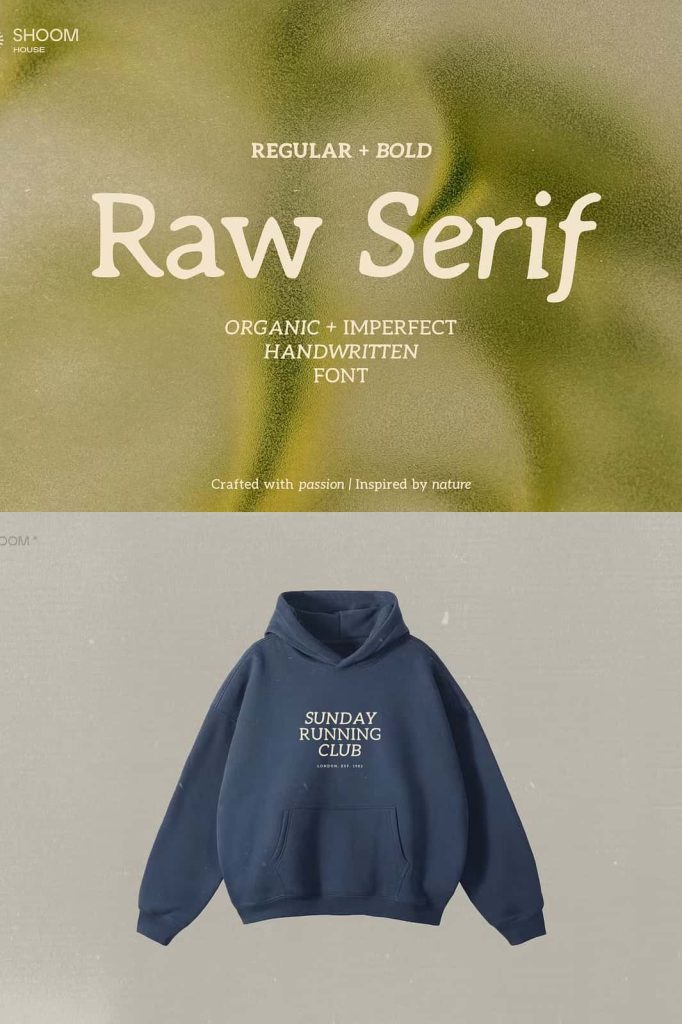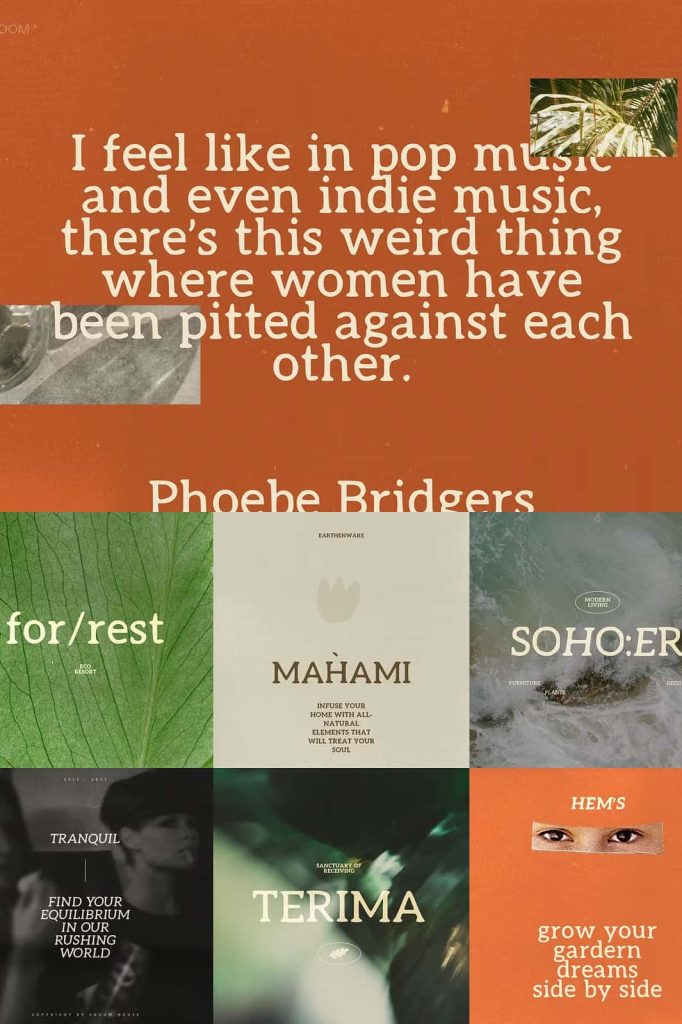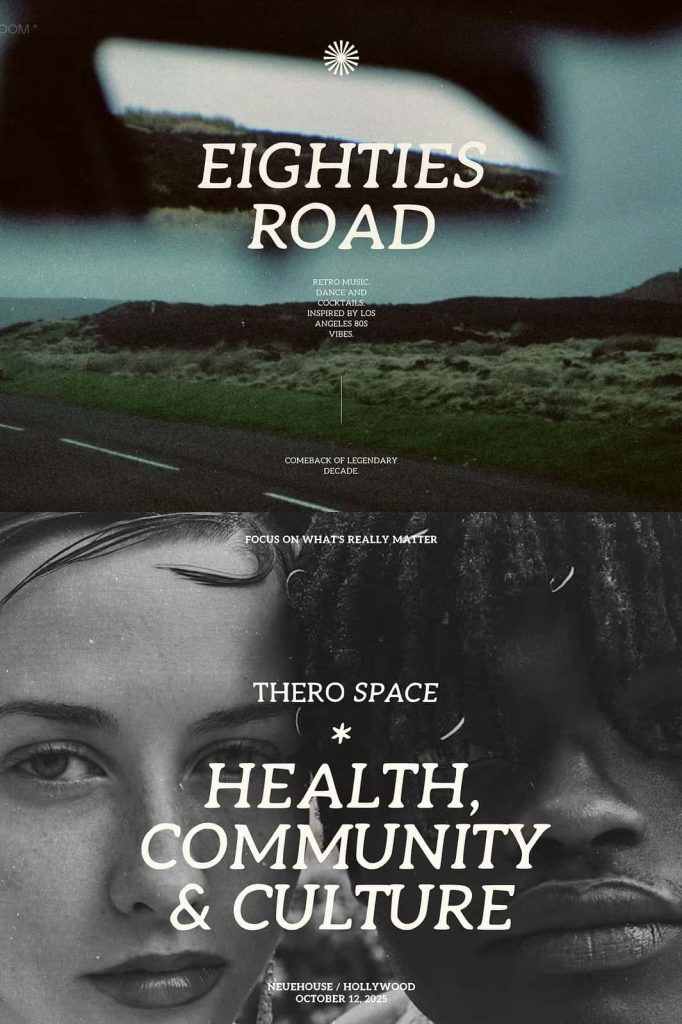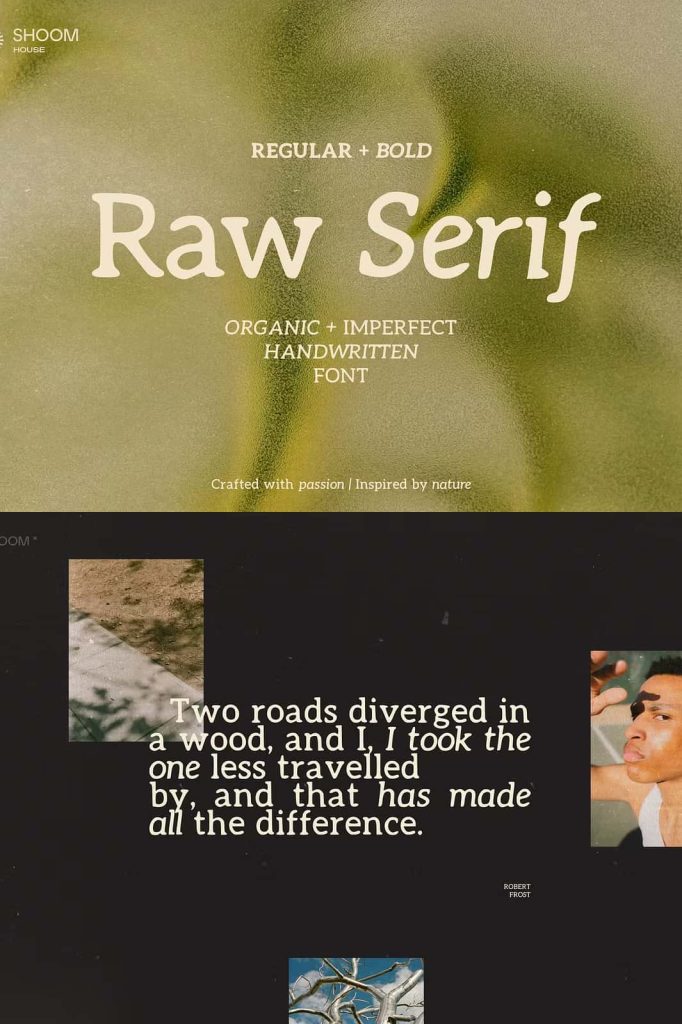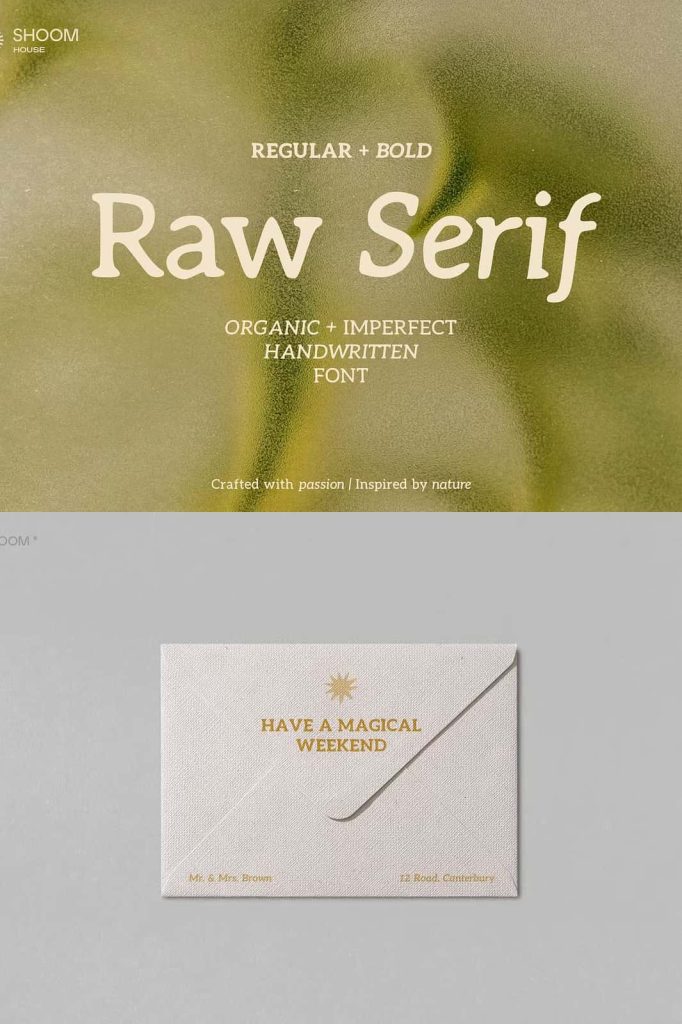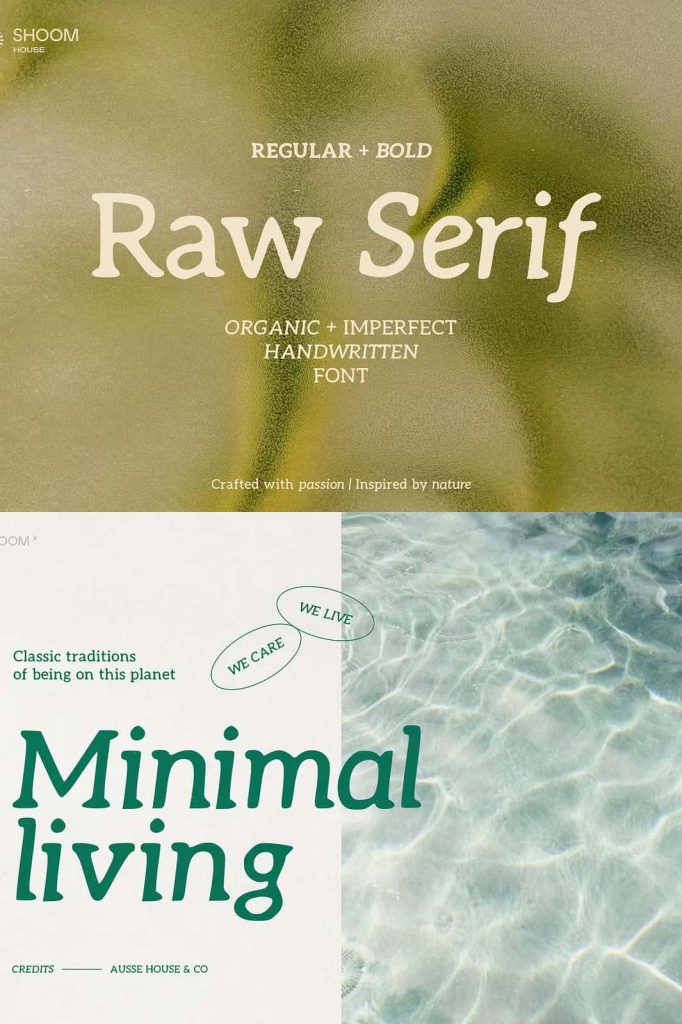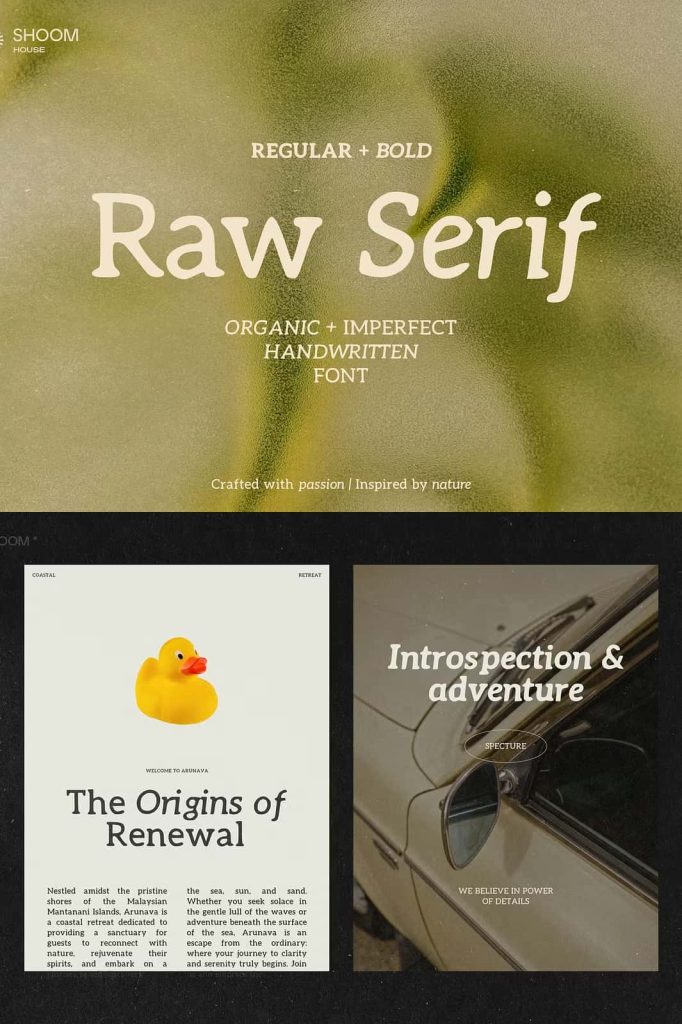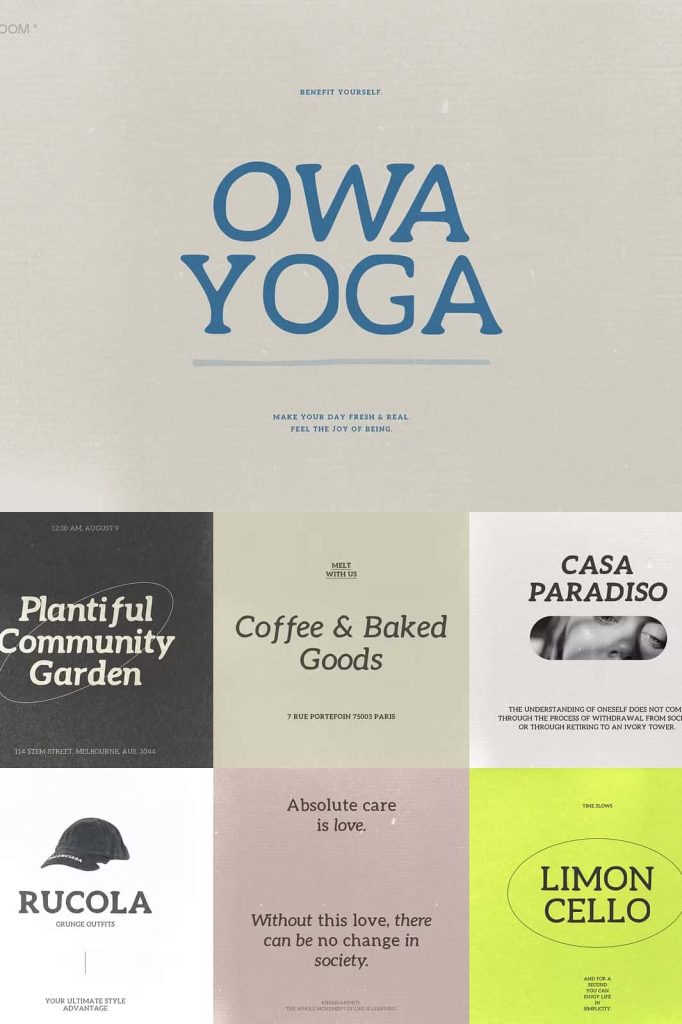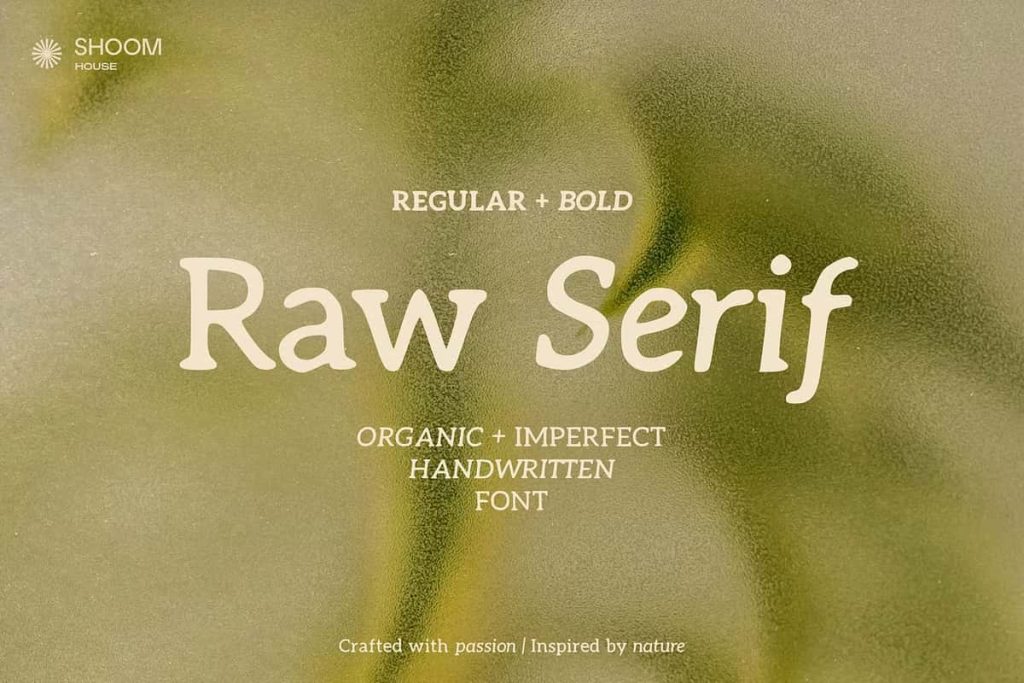
Raw Serif Font Family: A Handwritten Serif with Vintage Soul
Raw Serif blends the structure of a serif typeface with the expressive qualities of handwritten design. This font family delivers a unique combination of bold presence and organic warmth, making it a powerful choice for designers who want to create authentic and visually engaging typography. Its slightly vintage feel and handcrafted details give every letter a distinctive personality.
Unlike traditional serif fonts that emphasize precision and uniformity, Raw Serif embraces subtle imperfections. These natural variations bring life into the text, allowing designers to create work that feels more human and less mechanical. At the same time, its balanced proportions ensure readability and versatility across different design contexts.
What Makes Raw Serif Unique?
Raw Serif stands out because it merges two design approaches into one cohesive system. It maintains the clarity and structure of serif typography while introducing the fluidity of handwritten strokes. This combination creates a typeface that feels both familiar and fresh.
The organic lines and irregular details add depth and character. Each letter carries a crafted touch, as if it was drawn by hand with intention and care. This quality makes Raw Serif ideal for projects that require authenticity and emotional connection.
Key Characteristics
- Handwritten serif style with organic line movement
- Slight vintage influence for timeless appeal
- Subtle imperfections that enhance authenticity
- Balanced design for readability and versatility
- Bold yet approachable visual tone
The Appeal of Handcrafted Serif Fonts
Handcrafted serif fonts like Raw Serif offer a refreshing alternative to overly polished typography. They bring warmth, texture, and individuality into design, helping brands and creatives stand out. The combination of serif structure and handwritten detail allows designers to create a strong visual identity without losing approachability.
Raw Serif works particularly well in projects that aim to evoke nostalgia while maintaining a modern edge. It connects past and present through its design, making it suitable for a wide range of creative applications.
Why Choose a Handwritten Serif Font?
- Creates a unique blend of tradition and personality
- Adds warmth and authenticity to designs
- Enhances storytelling through subtle imperfections
- Balances readability with expressive style
Best Use Cases for Raw Serif
Raw Serif adapts easily to various design needs. Its versatility allows designers to use it across branding, print, and digital media while maintaining a consistent and engaging look. The font performs well in both bold headlines and supporting text, depending on the composition.
Ideal Applications
- Branding projects that require a handcrafted identity
- Posters and editorial layouts with a vintage touch
- Packaging designs that emphasize authenticity
- Social media graphics with a warm and personal feel
- Creative projects that blend modern and classic aesthetics
How to Use Raw Serif Effectively
To maximize the impact of Raw Serif, designers should focus on composition and contrast. Pair this font with clean sans serif typefaces to create a balanced layout. This approach highlights the handcrafted qualities of Raw Serif while maintaining clarity and structure.
Use Raw Serif in larger sizes to showcase its organic details and subtle imperfections. When applied thoughtfully, it can transform simple text into a visually engaging element that enhances the overall design.
Design Tips
- Use bold weights for headlines and key messages
- Combine with minimalist fonts for contrast
- Apply neutral or earthy color palettes for a vintage feel
- Maintain spacing to preserve readability
Raw Serif delivers a compelling blend of handwritten charm and serif structure. Its vintage influence, organic lines, and crafted imperfections make it an excellent choice for designers who want to create meaningful and visually rich designs. This font family offers both flexibility and personality, allowing it to adapt to a wide range of creative projects.
By using Raw Serif, you can bring warmth, authenticity, and timeless style into your typography. It transforms text into a design element that feels both expressive and refined, helping your work stand out with confidence and character.